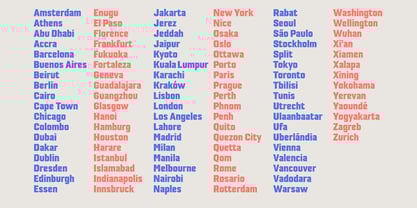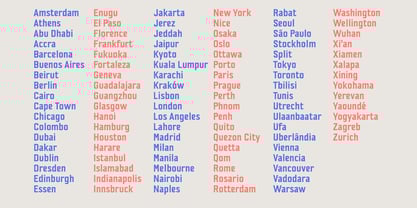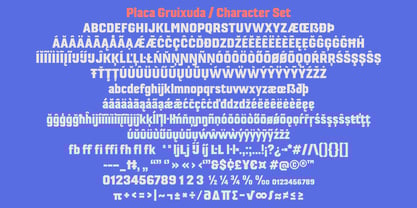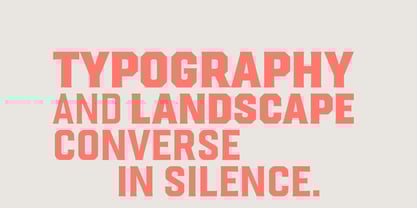
Placa
by Type-Ø-Tones
The Placa Font Family was designed by Laura Meseguer and published by Type-Ø-Tones. Placa contains 6 styles and family package options.
Placa is Laura Meseguer’s typographic interpretation of the lettering that defines Barcelona’s streets. Rooted in the city’s everyday visual culture, Placa translates the understated character of street signage into a contemporary, versatile type family. The project originated as a commissioned typeface for the documentary Barcelona. The Rose of Fire, produced by MediaPro in collaboration with Mariona Omedes (Nueve Ojos) and directed by Manuel Huerga. At the time, and still today, Barcelona lacked a distinctive typographic voice. Through close observation of the city, Laura identified a recurring model in its signage: a condensed, geometric sans serif with an incised, engraved-like quality. Placa refines this vernacular reference into a functional and expressive design. Placa is an incised sans serif with carefully tuned details that give it strong presence in display use while maintaining clarity and readability. Its proportions and rhythm make it especially suitable for editorial design, cultural projects, exhibitions, branding systems, signage, and wayfinding—contexts where identity and legibility must coexist seamlessly. Originally conceived as a single style, Placa was later revisited and expanded into a complete family. It now ranges from Fina to Gruixuda and includes a Variable Font, improving performance at small sizes and on screen. Designed for both print and digital environments, the family features extended character sets and consistent behavior across languages and formats. Placa is also used as a custom typeface on Laura Meseguer’s personal website. Placa pairs well with contemporary serif text faces or warmer, more organic type families, where its compact and structured character provides contrast and hierarchy. It can also stand confidently on its own in typographic-driven identities. The name Placa—meaning “plate” in both Spanish and Catalan—was chosen during a conversation with Ferran from Toormix. Direct and urban, it refers both to the physical street signs that inspired the design and to the layered cultural identity of the city. Placa is not a nostalgic revival, but a reinterpretation: a typeface that distills a familiar urban language into a modern, flexible tool for designers working across media.
About Type-Ø-Tones
Barcelona-based digital type foundry run by Laura Meseguer, and José Manuel Urós. Type-Ø-Tones is a typographic design company from Barcelona, Spain, founded by Joan Barjau, Enric Jardí, Laura Meseguer, and José Manuel Urós, who share the love and particular vision of type with illustration, teaching, music, and pixel-pushing. They joined forces in 1990 to create this foundry and throughout these years, designers, illustrators, and artists have made contributions to their collection of typefaces. You can consult more about the designers in the "Info?" section of their website http://www.type-o-tones.com Besides their wide experience as type designers, they are also teachers at different schools in Barcelona. They also give workshops all around Spain and abroad.